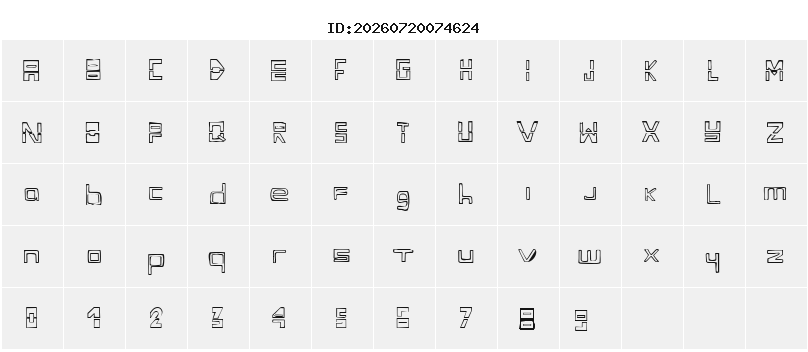
fontdizajnesrki Preview
• Font Name: fontdizajnesrki
• Font Style: 1
• Font ID: Macromedia Fontographer 4.1 fontdizajnesrki 1
• Full Font Name: fontdizajnesrki 1
• Version: Macromedia Fontographer 4.1 25.5.2011
• PostScript Name: Fontdizajnesrki1
• Character Count: 104
About fontdizajnesrki.ttf
fontdizajnesrki.ttf is a modern, elegant sans-serif font designed for ultimate readability and visual harmony. Perfect for branding, headlines, web design, and print materials.